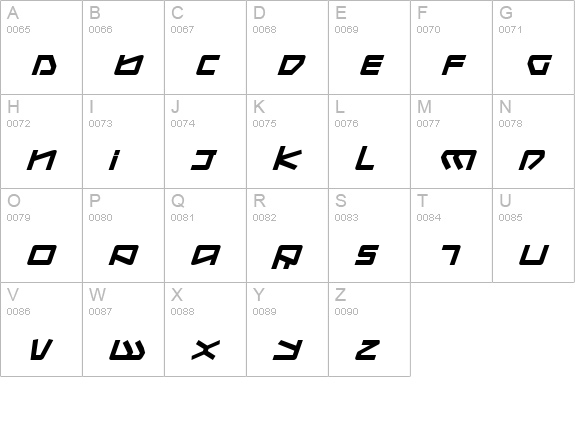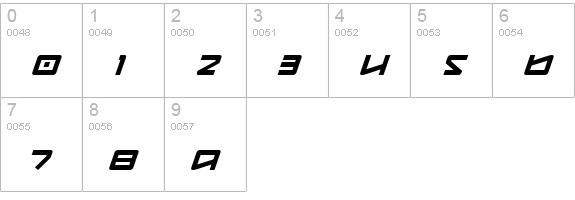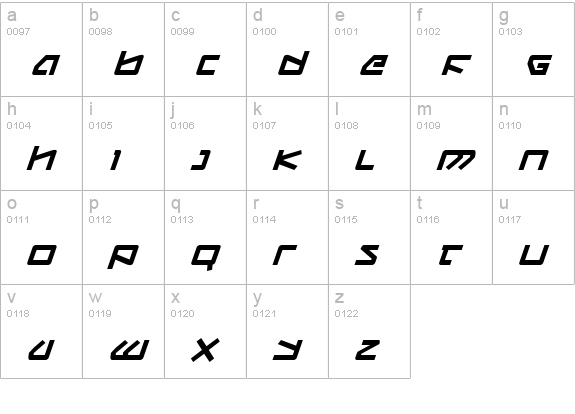
Kobold Bold Italic is a strong, high-contrast, italic variant in the Kobold typeface family \xE2\x80\x94 well suited to headlines, attention-grabbing titles, and strong calls-to-action.
Kobold Bold Italic font is a striking and dynamic typeface that exudes a sense of confidence and modernity. Its bold and italic design makes it perfect for creating eye-catching headlines, titles, and branding materials. The unique blend of sharp angles and elegant curves gives this font a distinctive edge that sets it apart from the rest. What's even better is that Kobold Bold Italic font is completely free to download at FontsMarket.com. Whether you're a designer looking to add a bold statement to your projects or a business owner in need of a fresh look for your marketing materials, this font is sure to impress. Don't miss out on the opportunity to elevate your designs with this versatile and stylish typeface. Download Kobold Bold Italic font today and let your creativity shine!